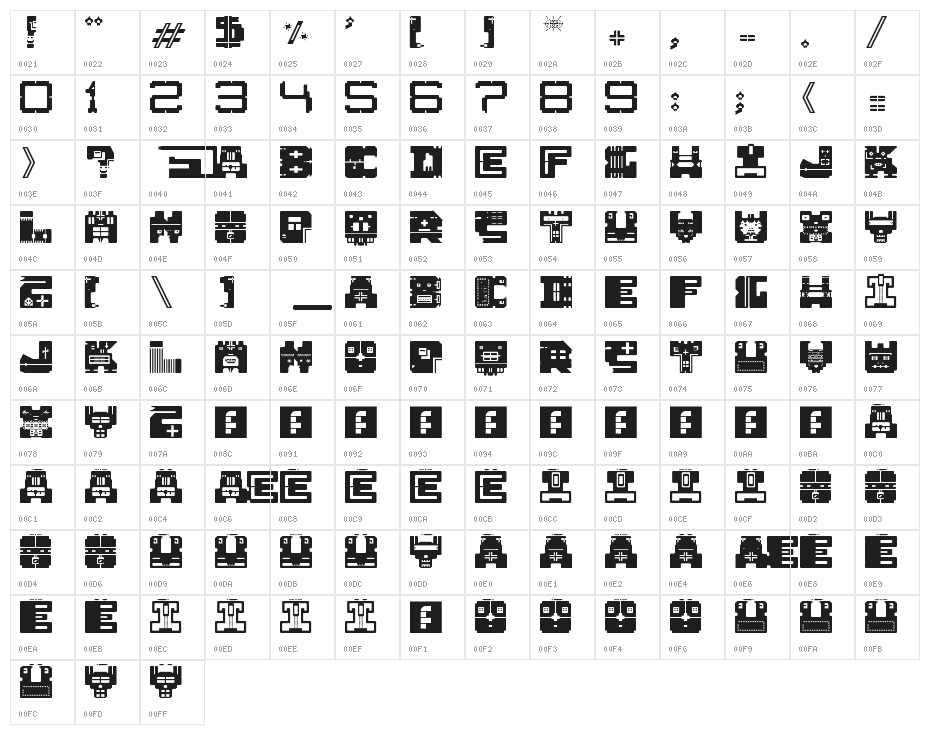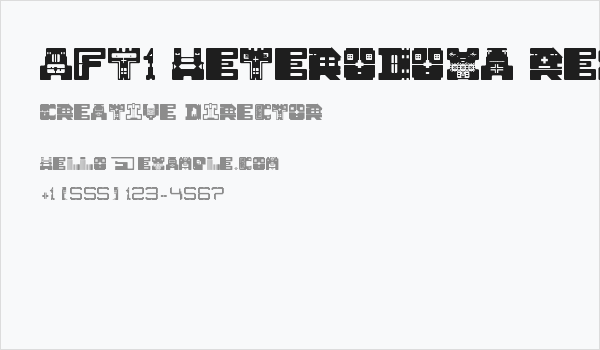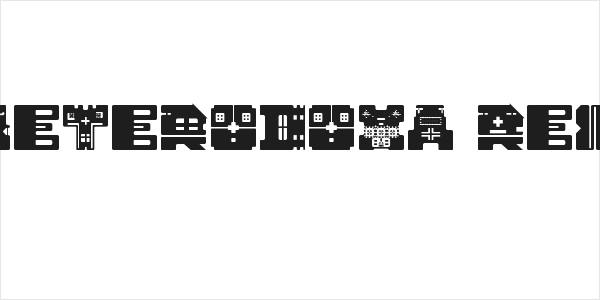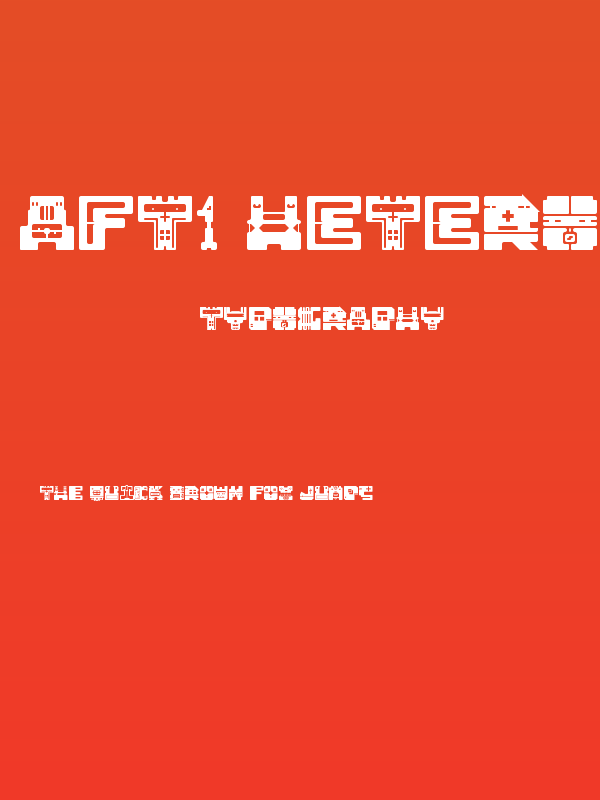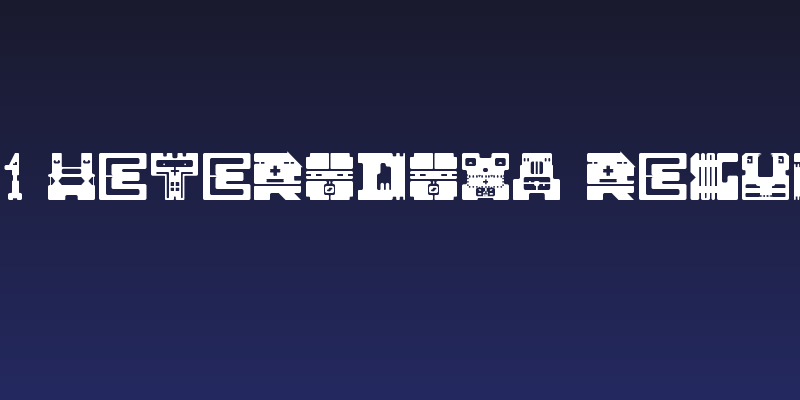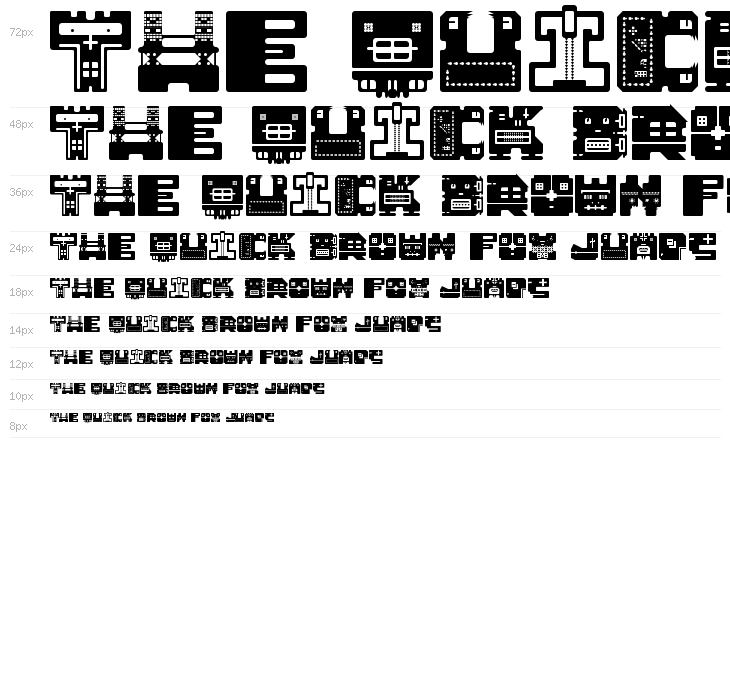
AFT1 Heterodoxa Regular Font
AFT1 Heterodoxa Regular Description
This font is a bold and highly decorative typeface that features intricate patterns and unique designs within each character. The letters are blocky and geometric, with a playful and experimental aesthetic. Each character incorporates various motifs, such as dots, lines, and abstract shapes, creating a visually complex and engaging appearance. The font is designed to capture attention and convey a sense of creativity and innovation. It is ideal for projects that require a standout visual element, offering a distinct and artistic flair.
| Proposed Projects | Ideal for posters, album covers, video game graphics, and creative branding. |